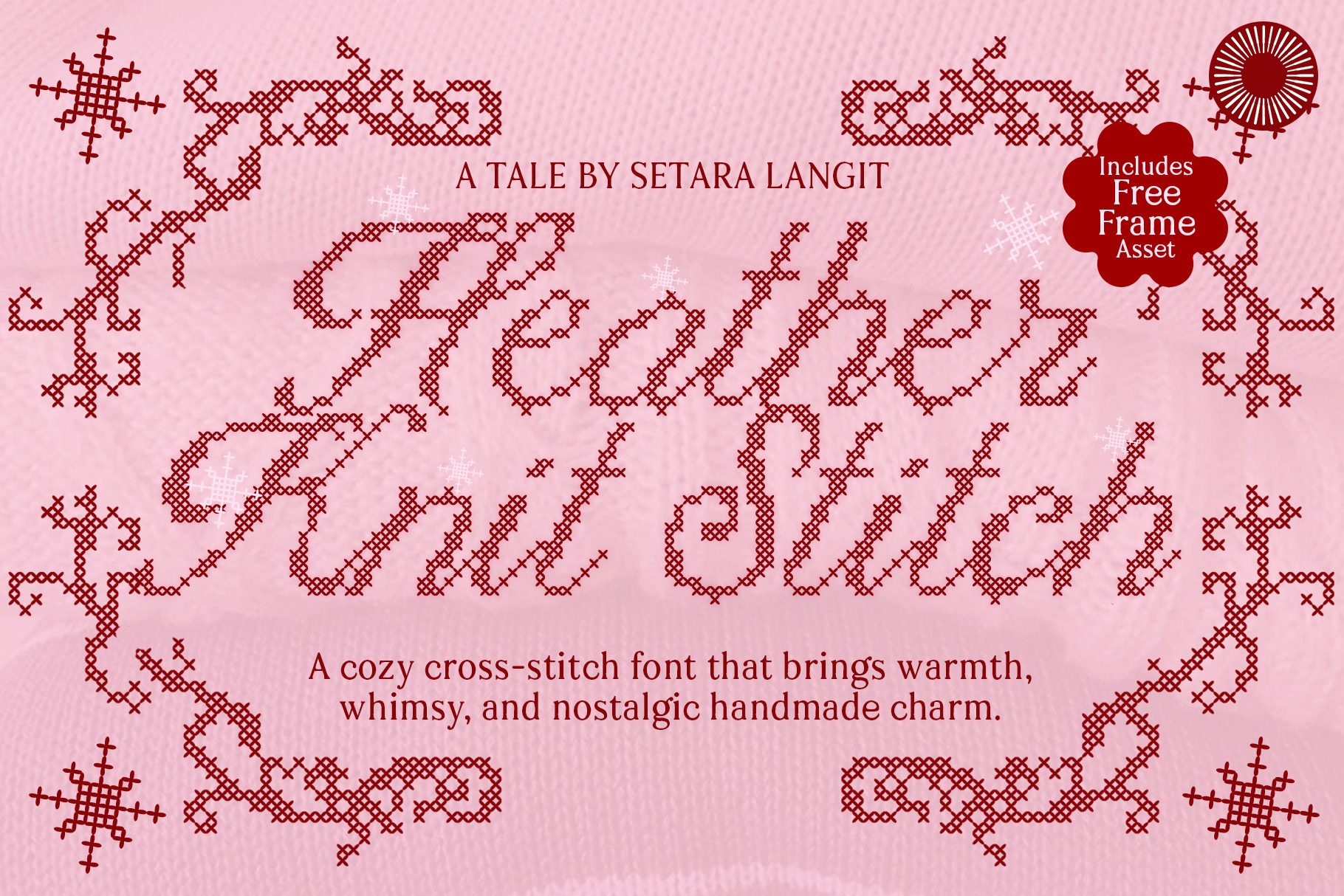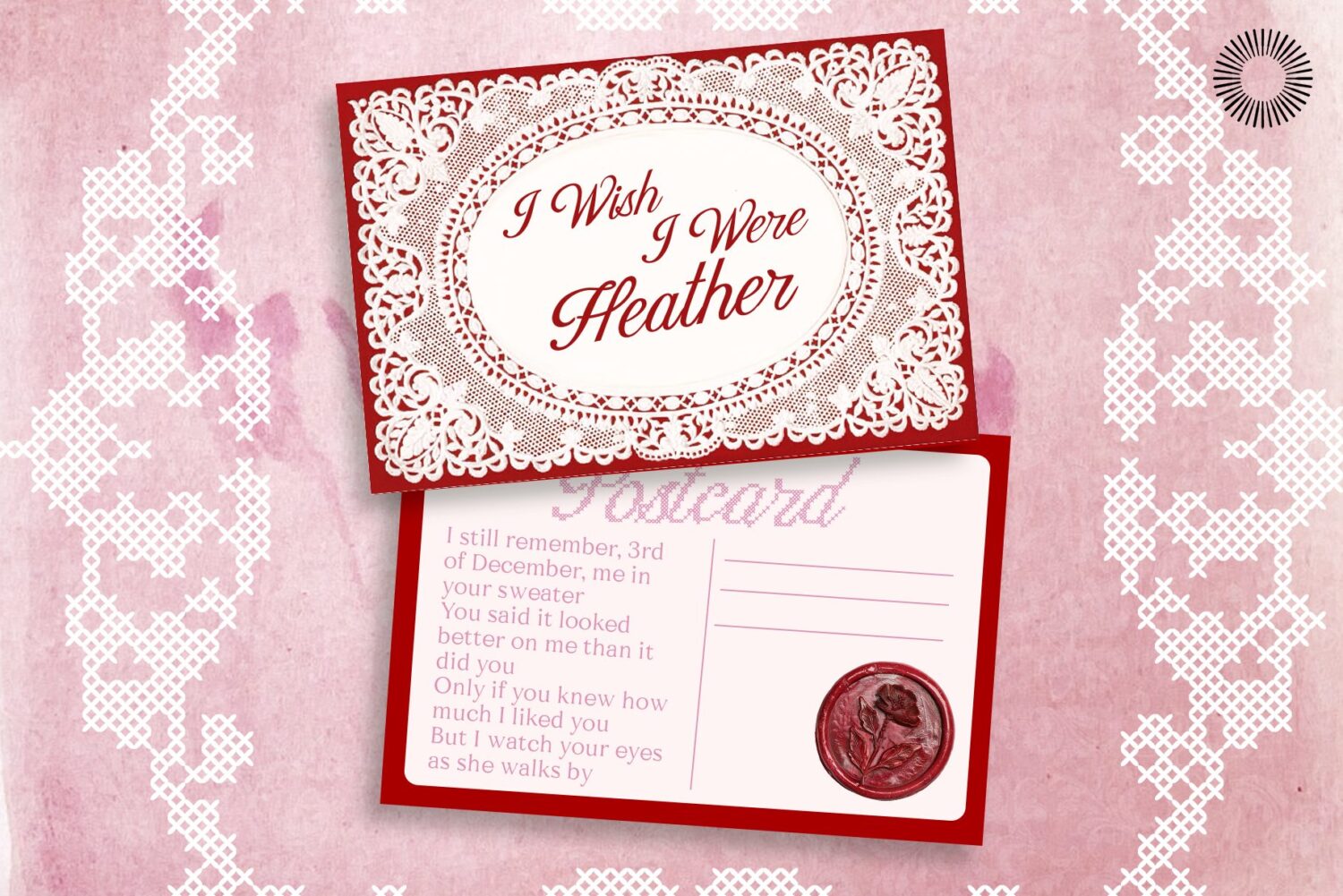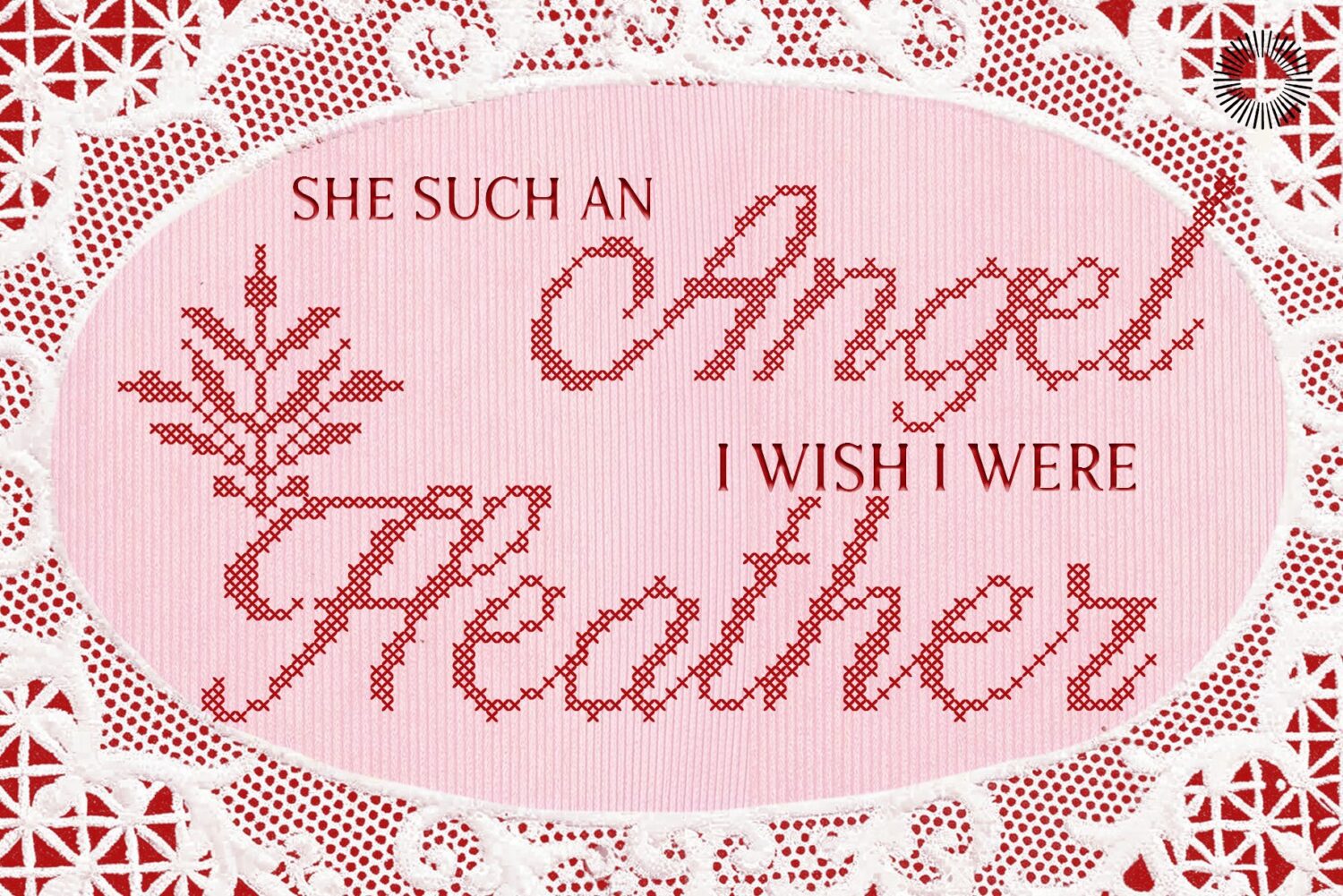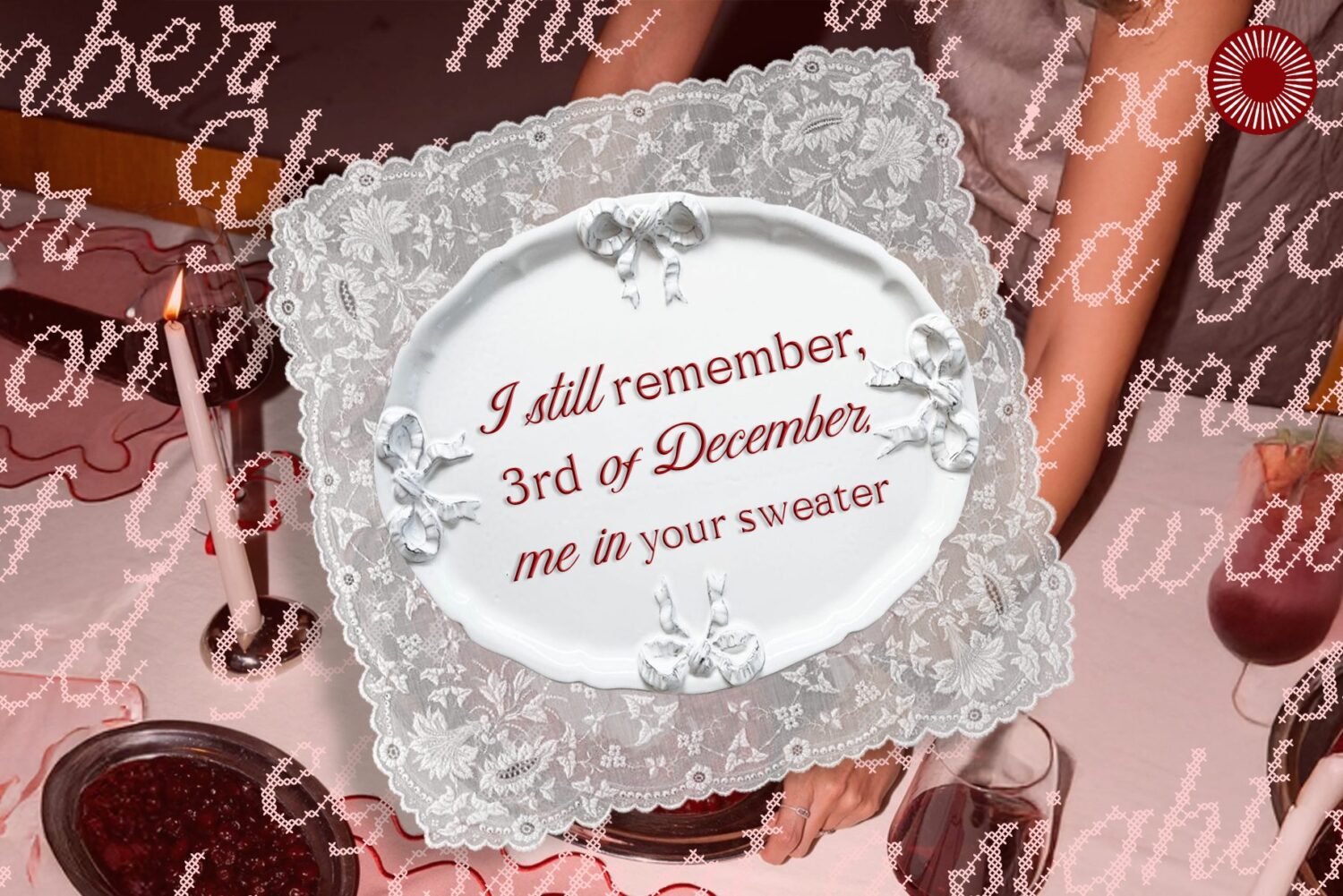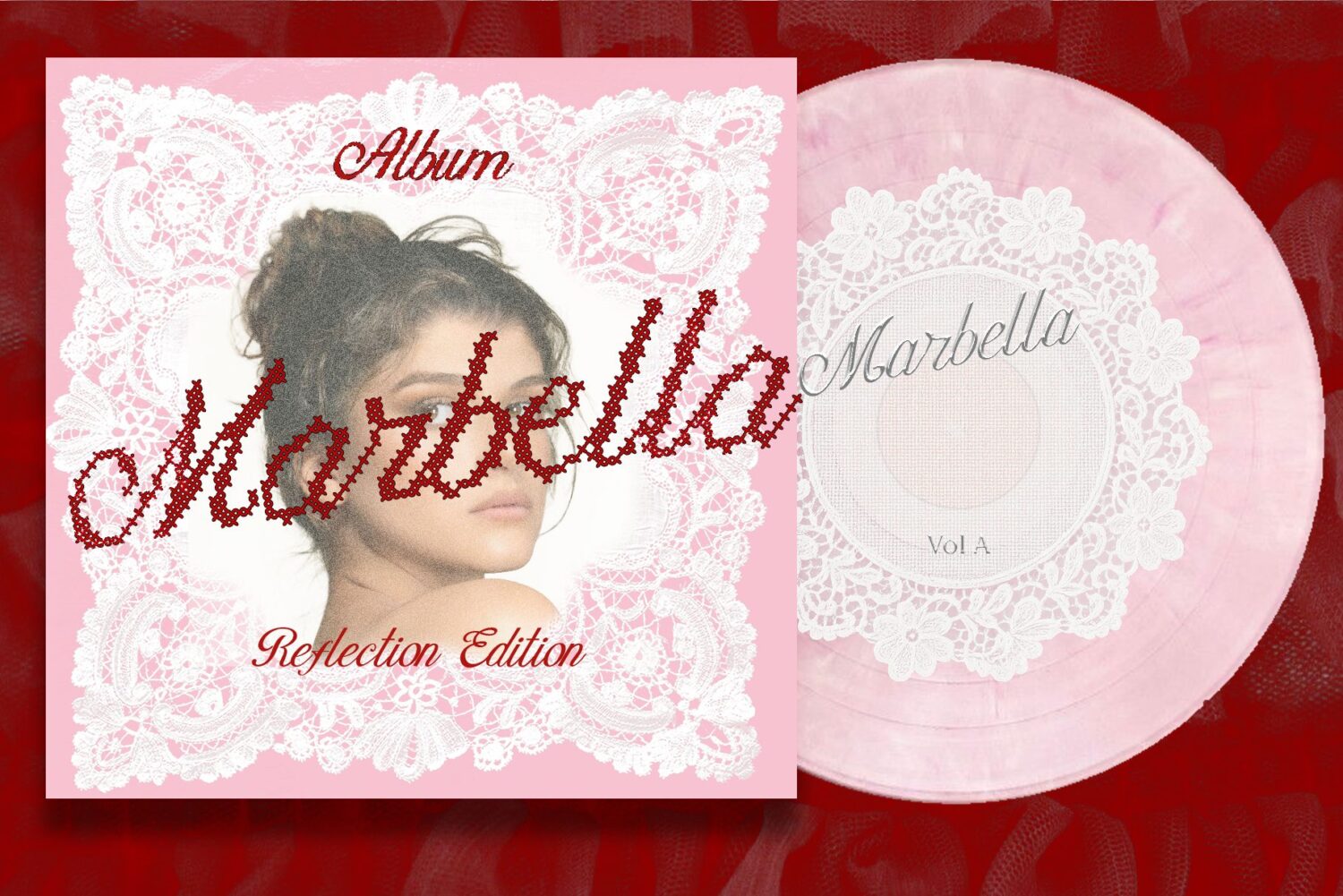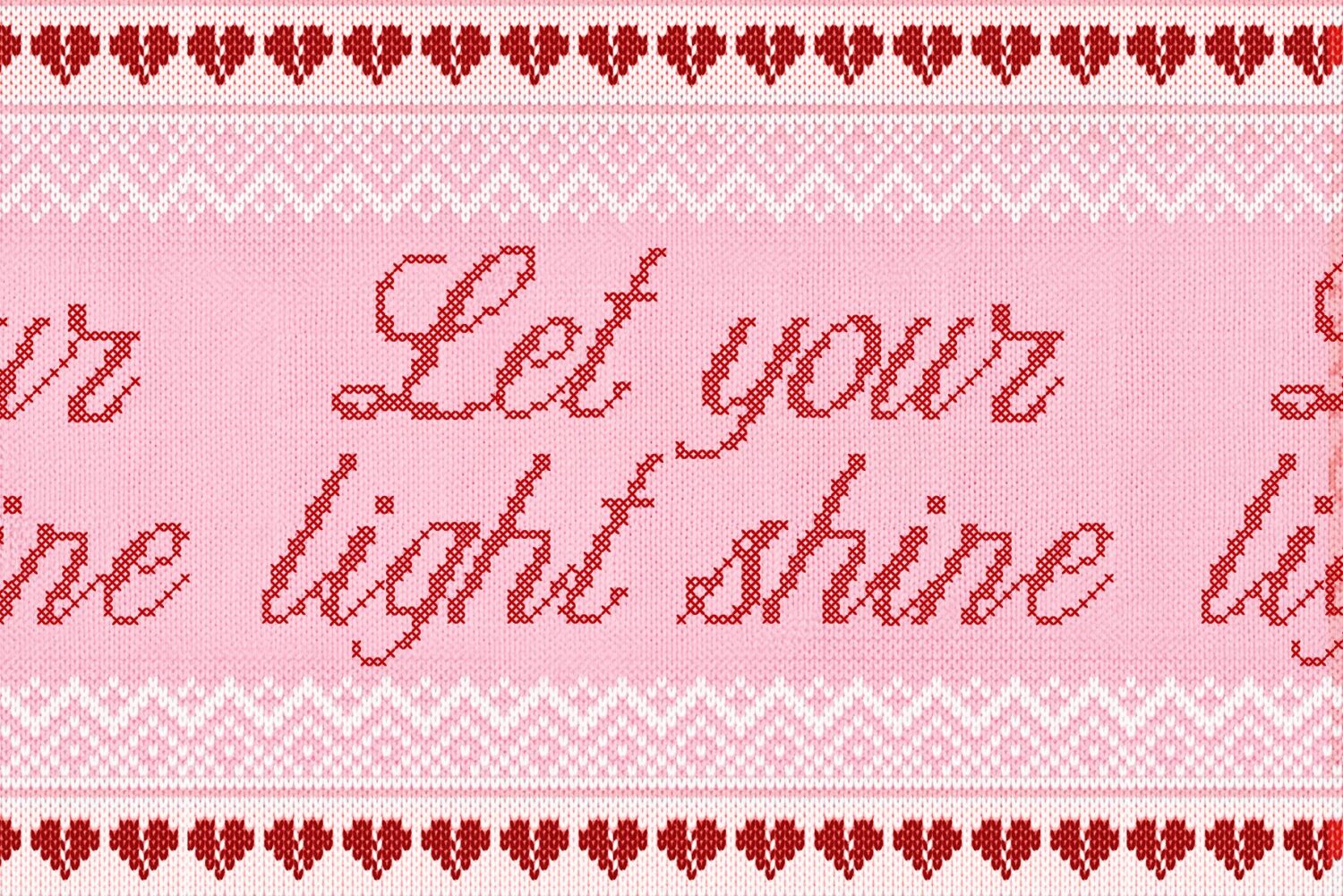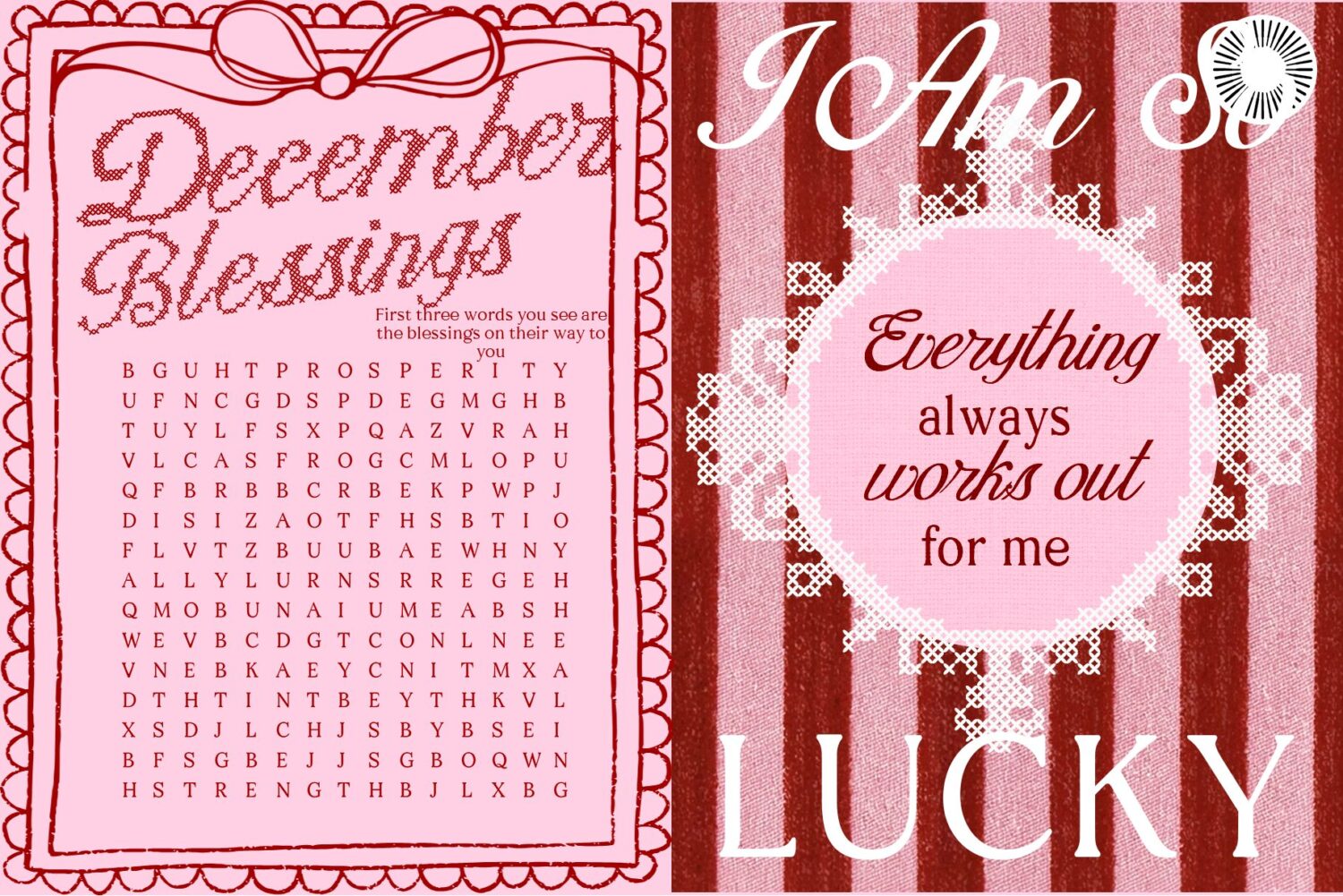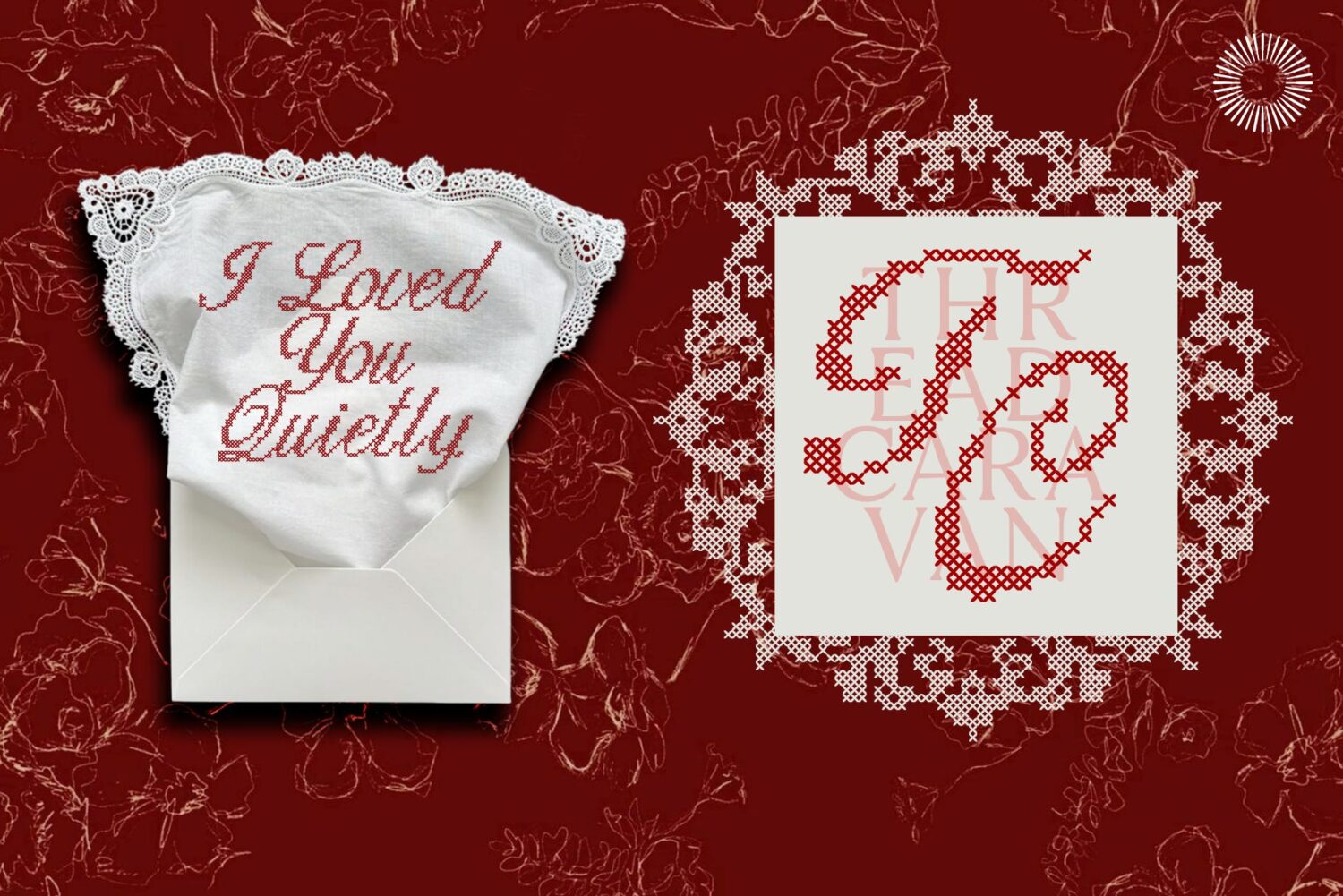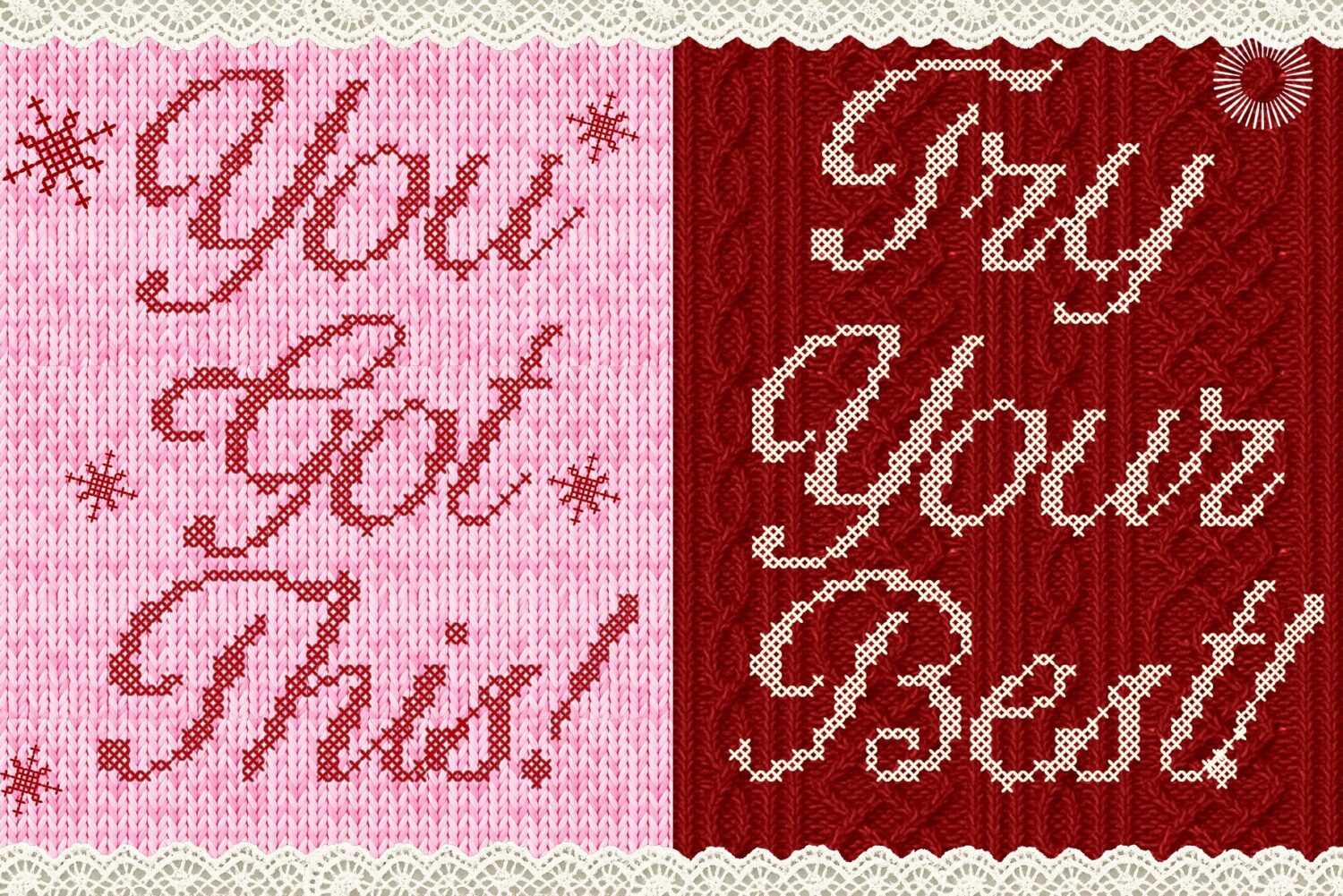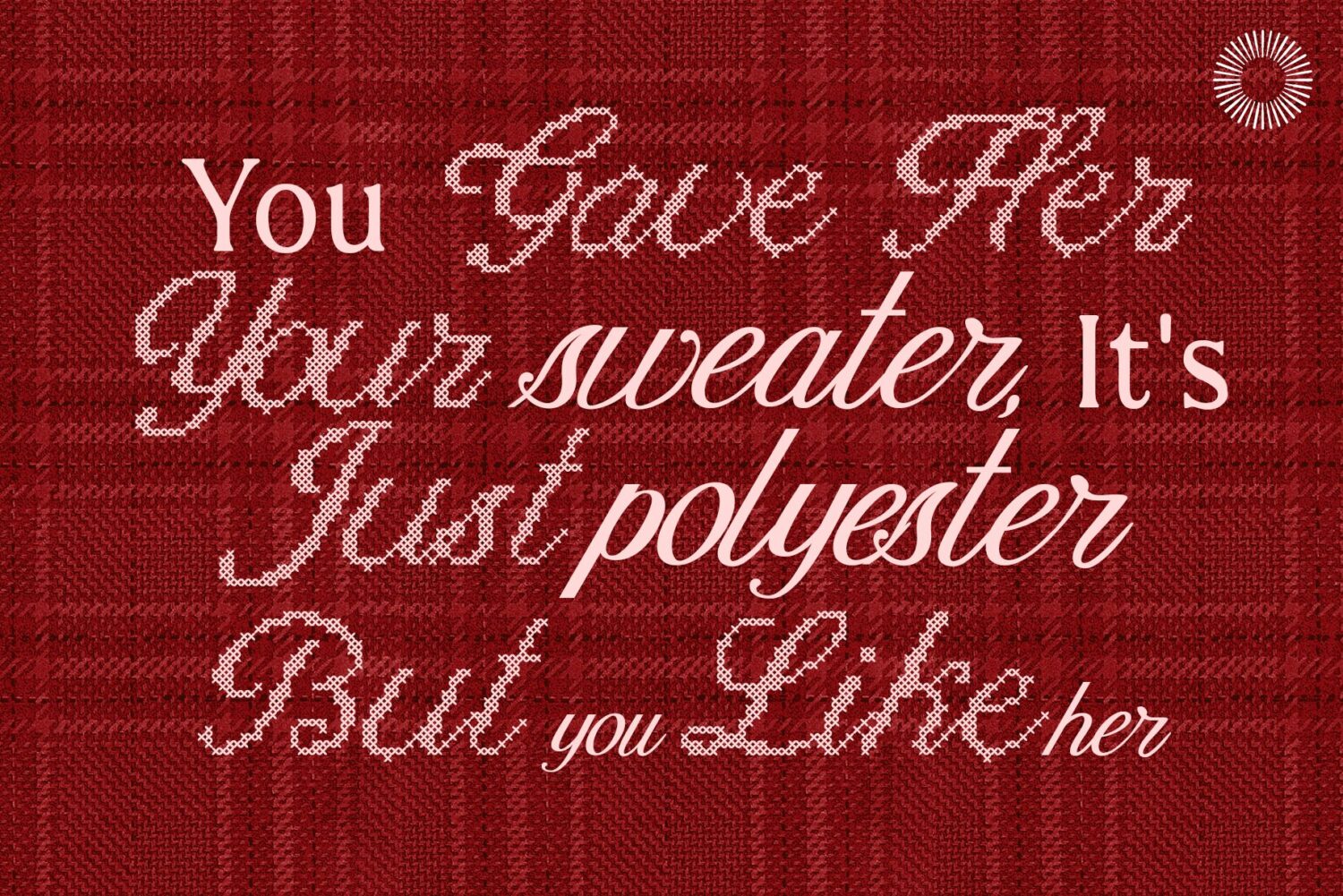
Heather Knit Serif
Heather Knit Regular
Heather Knit Stitched
Heather Knit – Stitch Font Bundle
Heather Knit – Cozy Stitched Font Bundle Heather Knit is a warm, handcrafted font bundle inspired by knitted stitches and cozy handmade textures. This bundle is designed as a complete typographic set, combining stitch, script, and serif styles, along with a matching decorative frame asset, so you can build harmonious designs without searching for extra elements. The stitch style brings the signature knitted texture—expressive, playful, and full of handmade character. To balance this, the script and serif styles are created with cleaner forms and consistent proportions, allowing them to pair naturally with the stitch lettering while keeping your layouts readable and well-structured. All fonts in the bundle share compatible spacing, weight balance, and overall rhythm, making them easy to mix and match in a single project. The included frame asset follows the same stitched aesthetic, completing the visual system.
• Multilingual support
• Uppercase & lowercase
• Numerals & punctuation